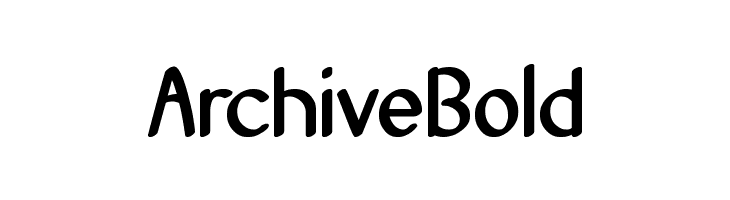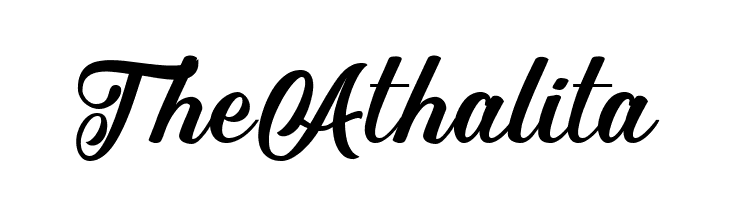
An elegant script font with flowing, cursive letters and refined flourishes.
A classic serif typeface with elegant proportions and refined strokes.
A bold, split-effect decorative font ideal for striking headlines.
A pixelated, grid-like font with a retro digital aesthetic.
A cursive, handwritten font with elegant, flowing strokes.
A playful, handwritten font with bold, rounded characters and a whimsical style.
A dripping, grotesque font ideal for spooky themes.